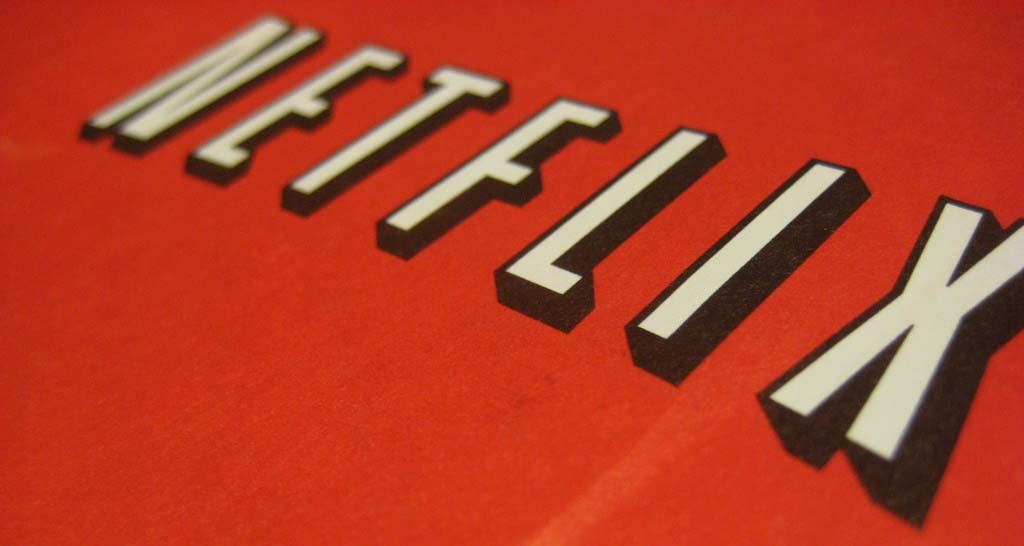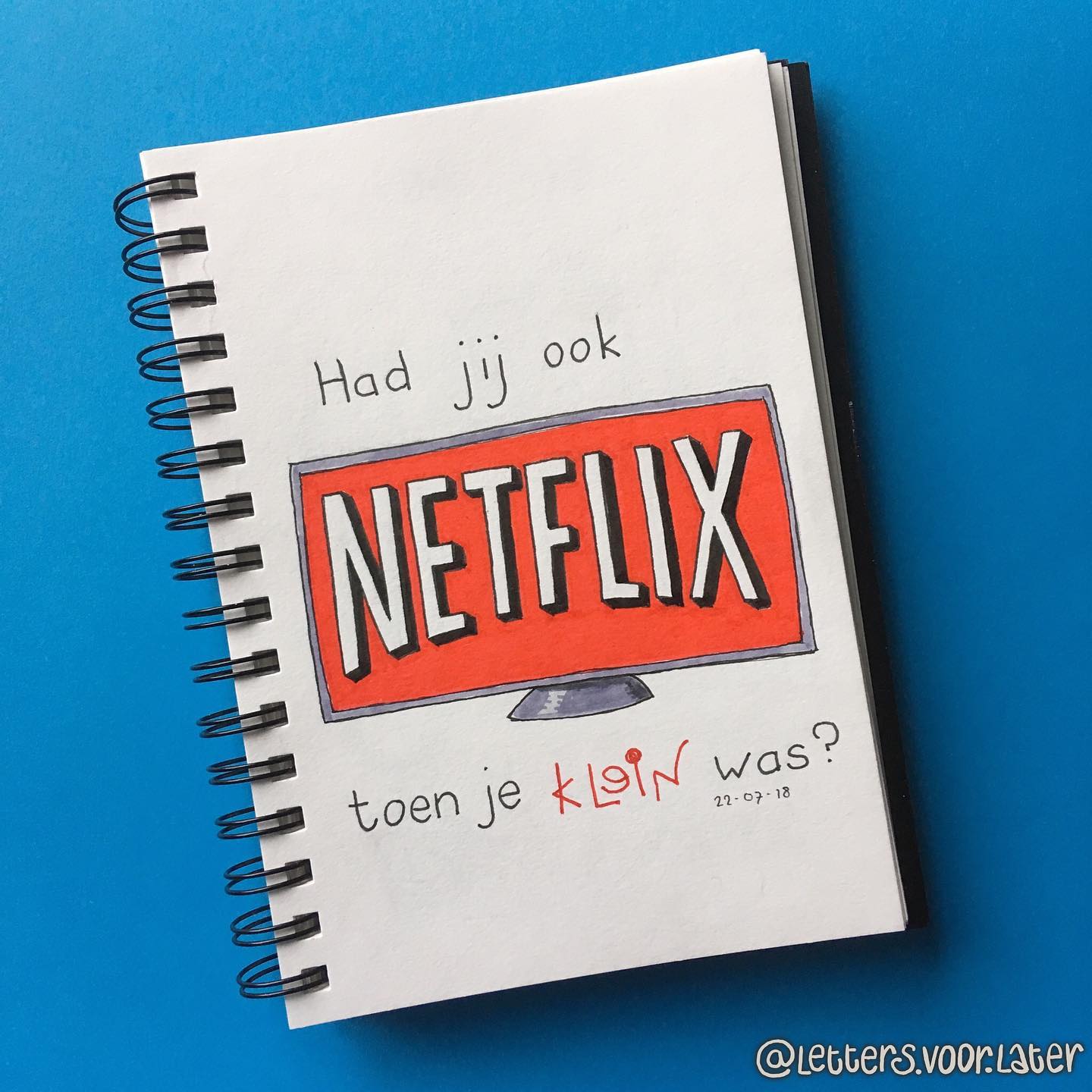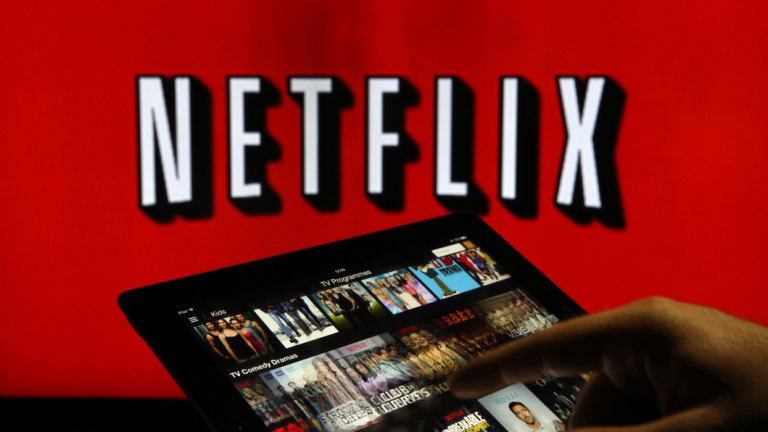
Netflix Font Letters
You can also change the shadowof the font and shadow colors and the font size. The bebas neue family is among display fonts that support extended latin cyrillic. You can change the font size shadow and background color of subtitles and captions.
5 bebas neue free fonts available. Bebas neue netflix while netflixs logo does use custom lettering its closest likeness is the sans serif bebas neue. The licence mentioned above the download button is just an indication.
The fonts collection section is the place where you can browse filter custom preview and. It has lettering that stretches vertically to make the text appear more prominent. Explore demo fonts for free download.
The fonts in use section features posts about fonts used in logos films tv shows video games books and more. When youre happy with your netflix subtitle settings click the savebutton. The font used for the netflix logo is graphique originally designed by hermann eidenbenz in 1945 and then digitized and expanded by ralph m.